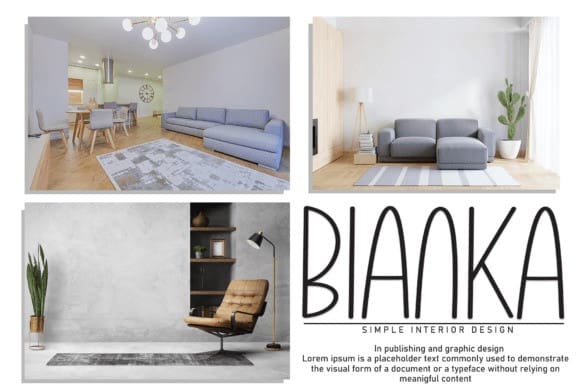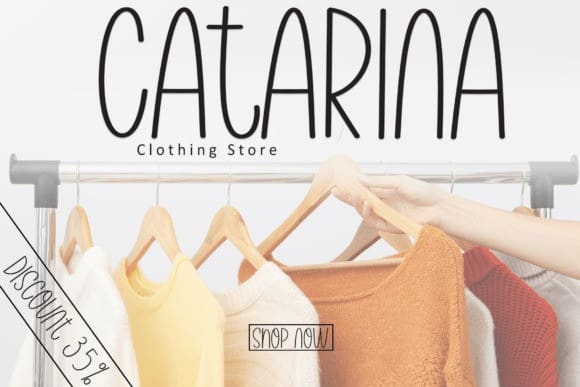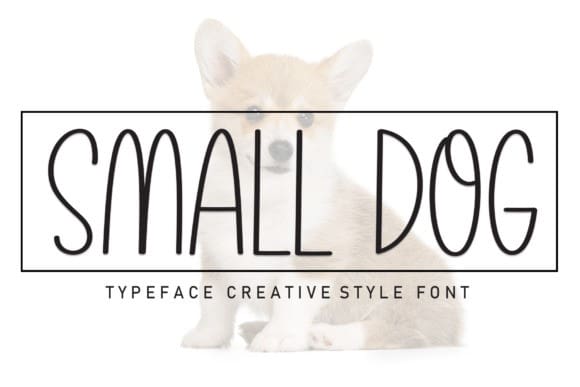
Small Dog Font
Small Dog Font is a sweet and friendly handwritten font. Fresh and casual, this font is ideal for writing wedding invitations, cards, or any other design that might need a lovely touch.